Artistic fonts stand out for their unique flair and expressive style.📣
In the constantly changing graphic design world, the power of typography cannot be overlooked in how it is received. With the vast ocean of fonts out there, artistic fonts are even more distinctive with their special character and communicative feel. Whether designing a creative poster, brand identity, or social media posts, selecting the appropriate artistic font can make your design unforgettable and visually striking.
In this post, we’ve put together 6 of the top artistic fonts that every designer should look into. These are ideal for adding that extra oomph to your visual layouts and making your projects shine. The best part? You can download them for free and immediately add them to your creative arsenal.
Marietta Font
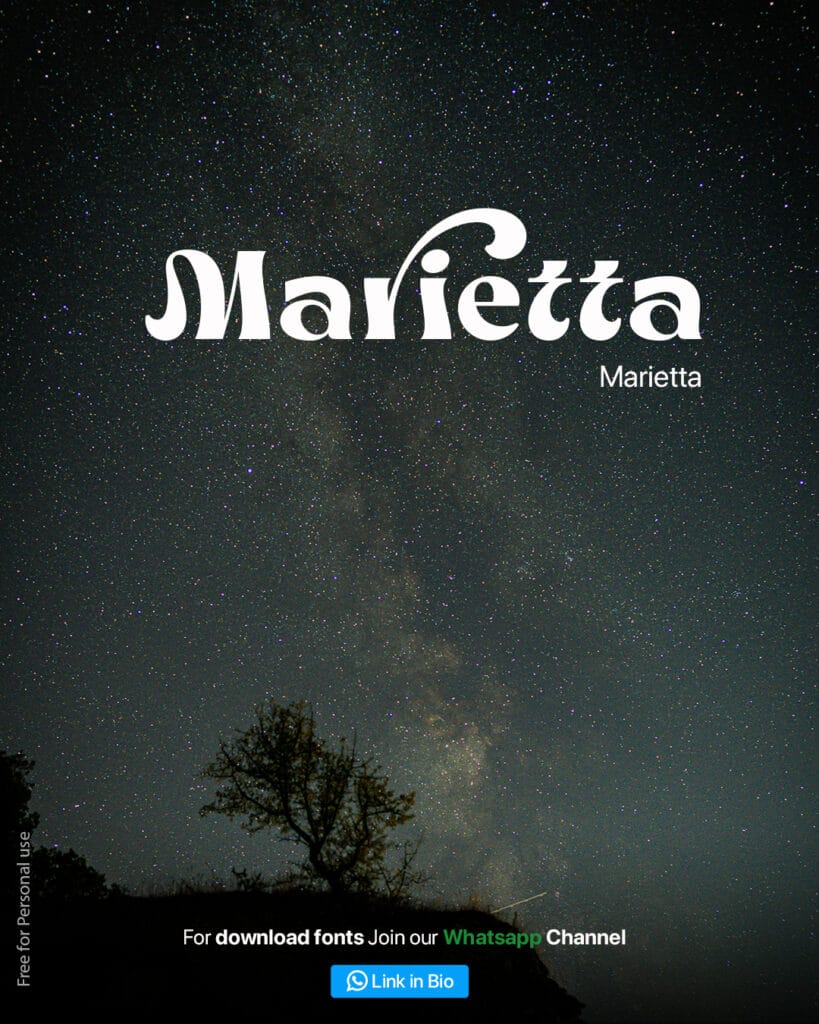
Maugeneve Font
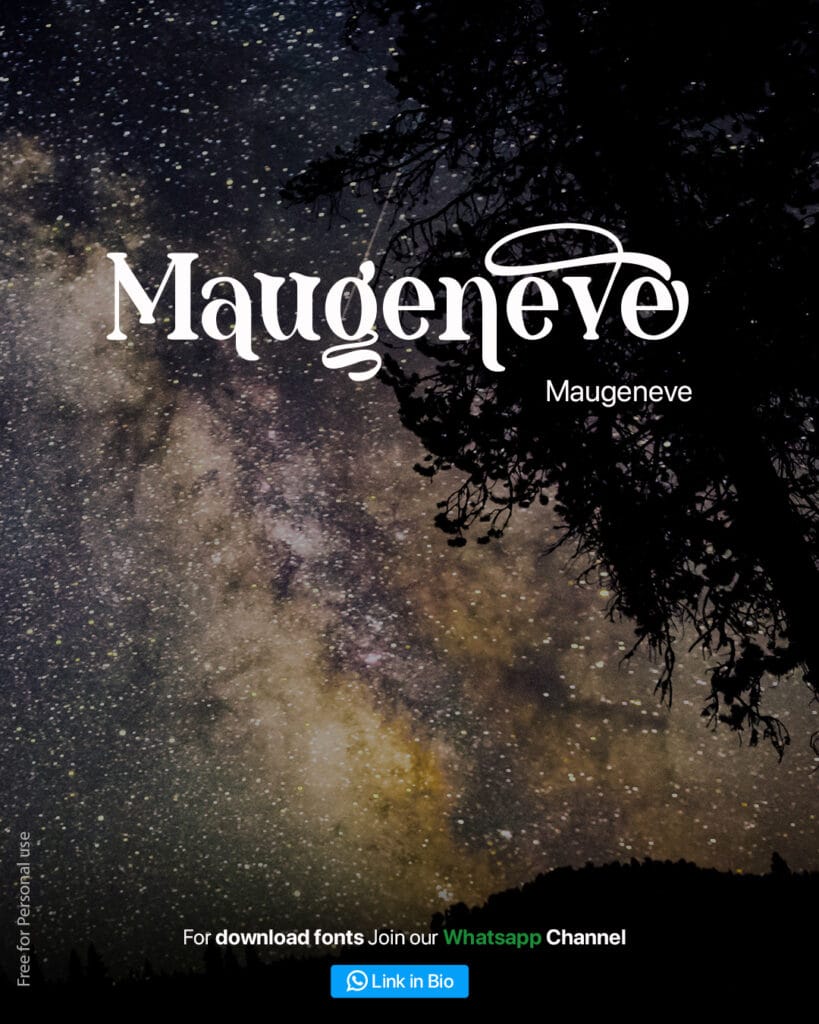
Rechgari Font
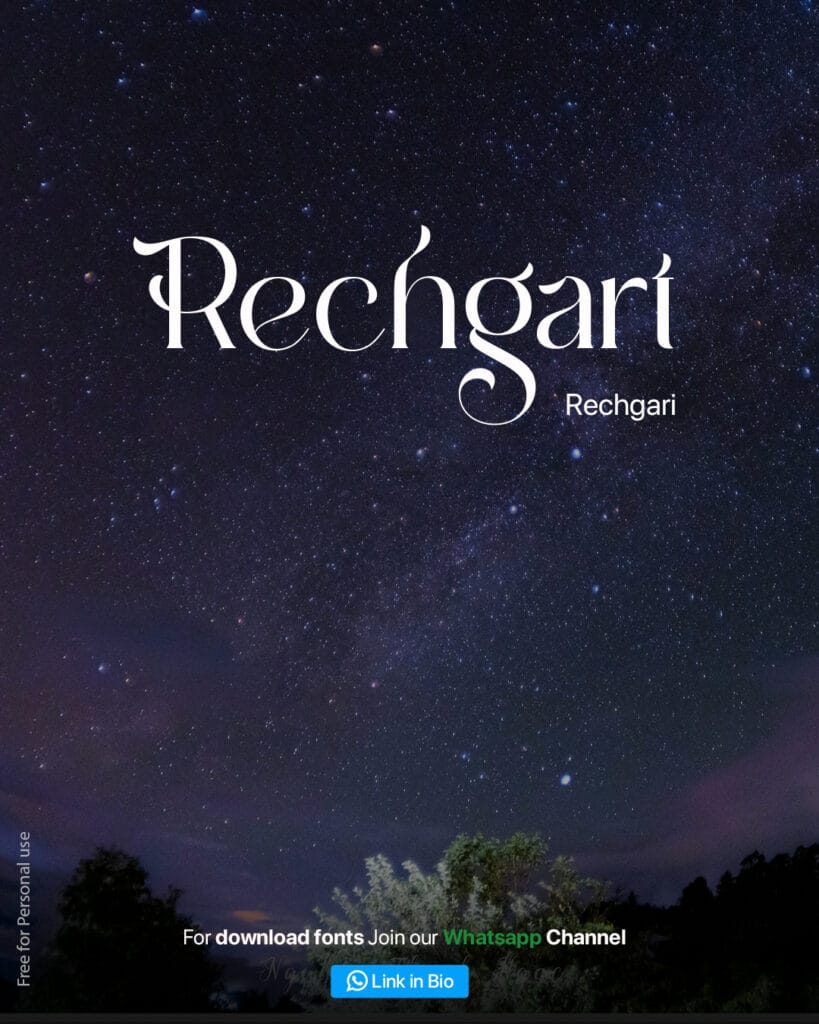
Oblo Font
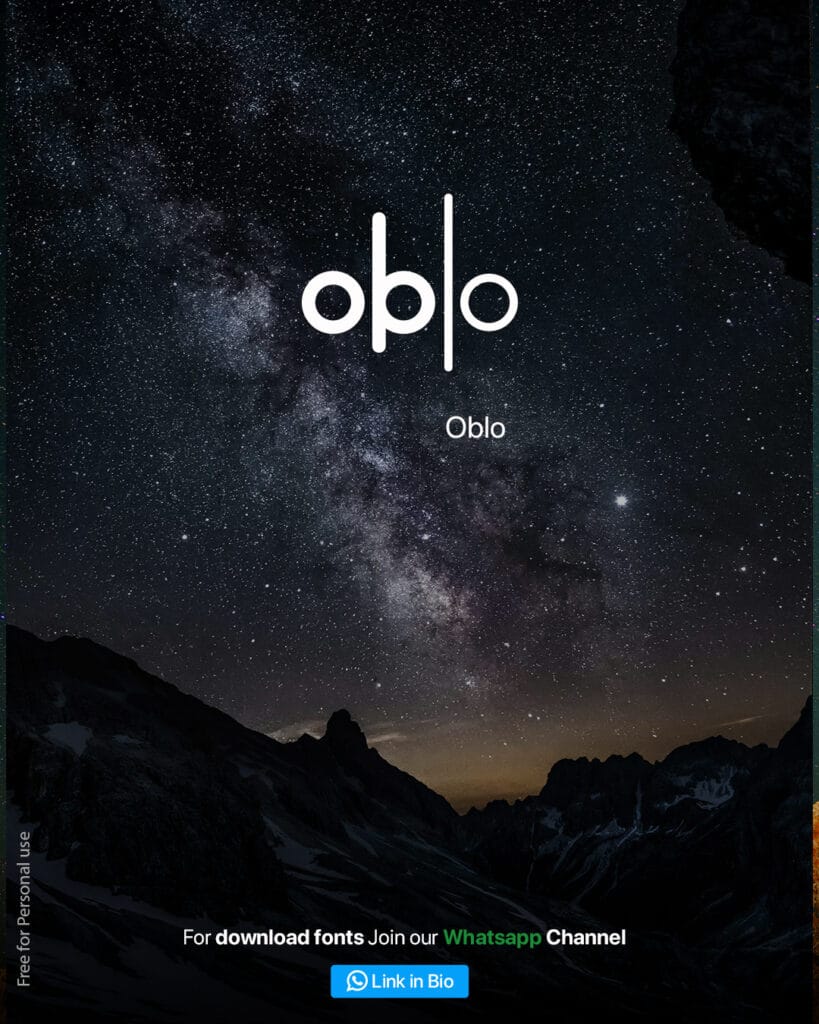
Malevice Font
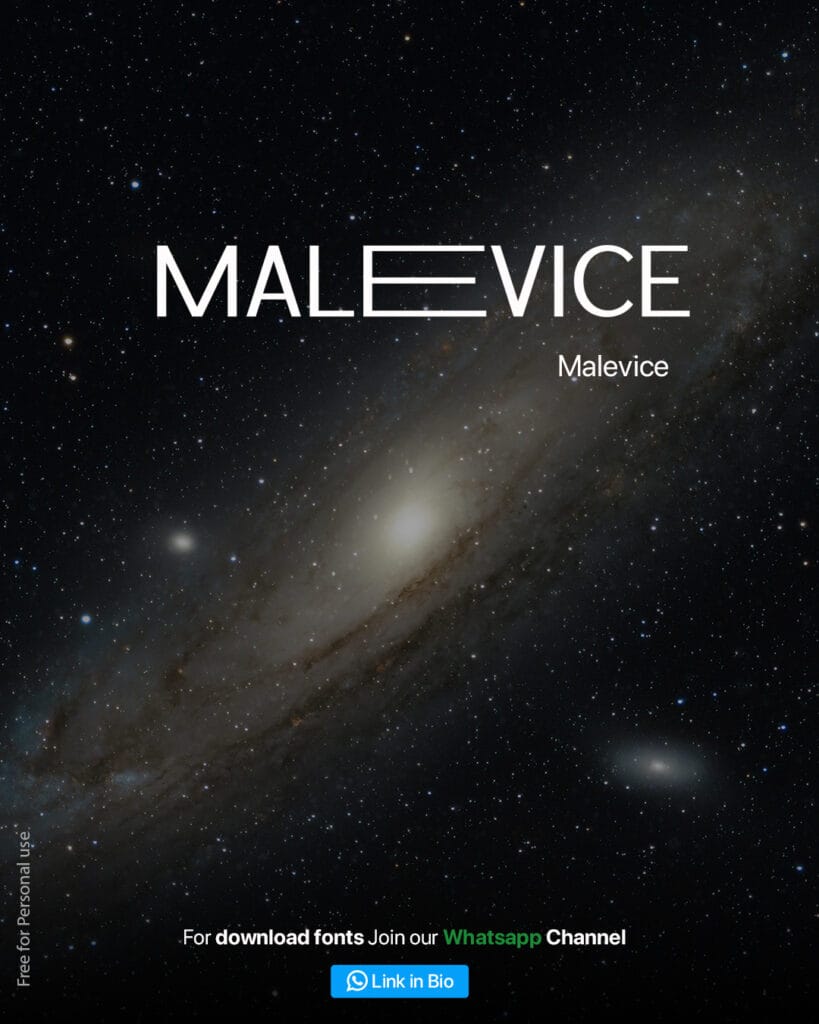
Evelins Font
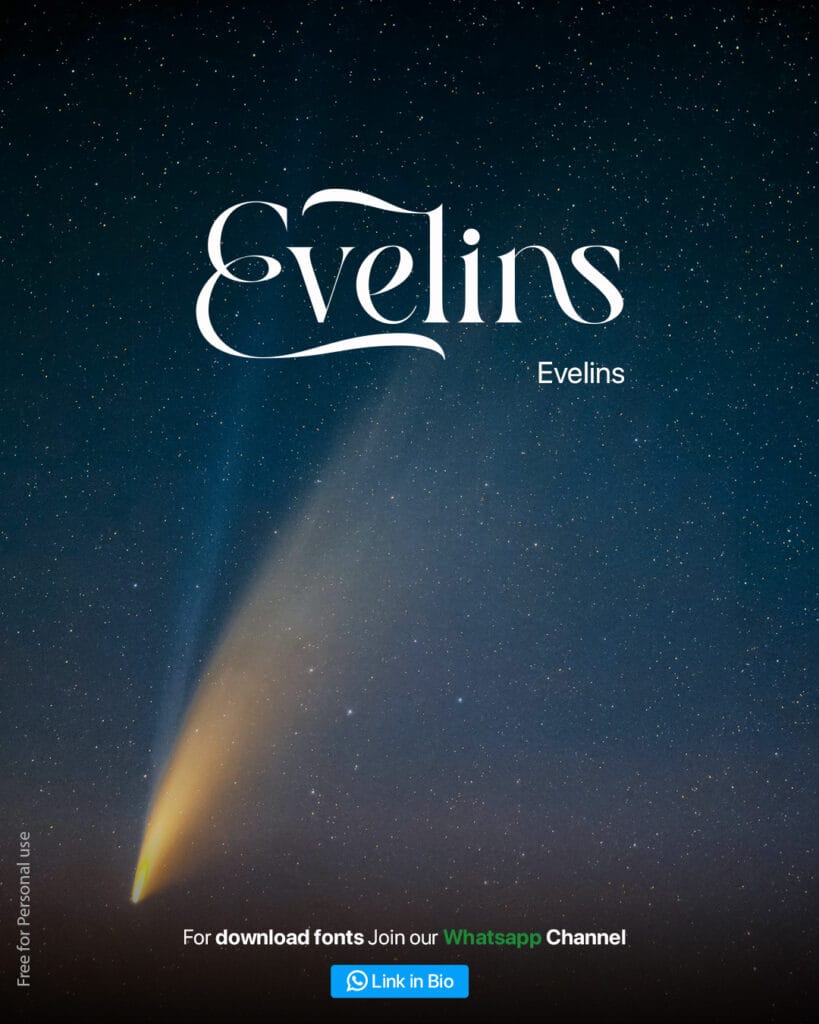
Designers often turn to artistic fonts when they want to break free from the conventional and bring a touch of originality to their work. These fonts are often handcrafted, detailed, and packed with personality—making them perfect for projects that demand attention. They’re not just typefaces; they’re storytelling tools.
So if you’re a designer on the hunt for fresh, expressive typefaces, or just looking to experiment with new styles, this handpicked collection of free artistic fonts is just what you need. Dive in and give your designs the character they deserve.